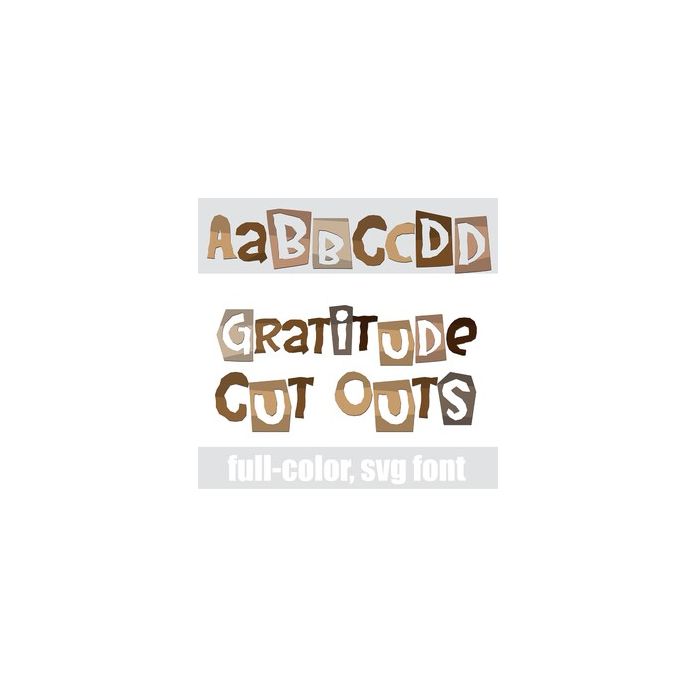
This full-color font features youthful, child-like lettering that looks like it was cut out of construction paper in a Thanksgiving color palette. There is an alt case w/ additional colors you can access through your system or Silhouette's glyph map.